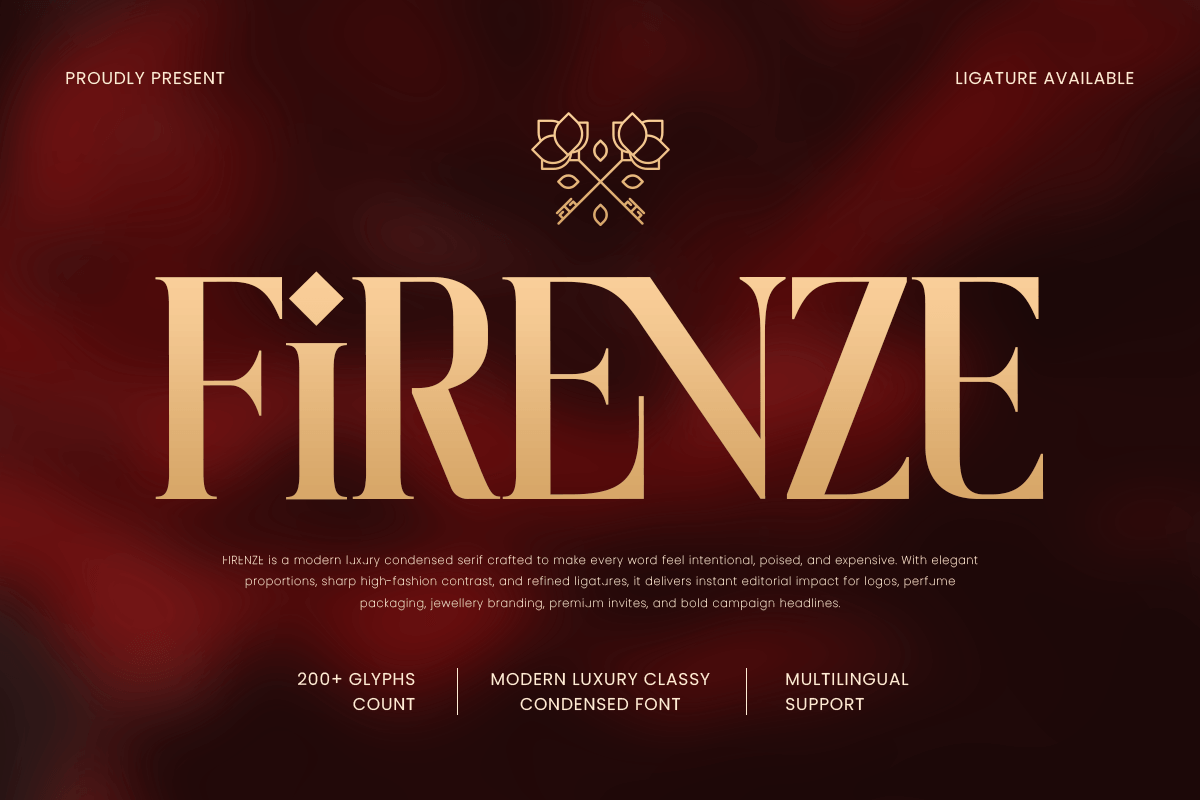
Firenze
-Modern Luxury Classy Condensed FontFirenze - Modern Luxury Classy Condensed Font
FIRENZE is a modern luxury classy condensed font crafted to deliver refined elegance with a sleek, space-saving silhouette. With tall proportions, polished details, and a confident premium rhythm, this typeface creates a sophisticated visual tone that feels stylish, exclusive, and instantly brand-ready.
Designed for high-impact typography, FIRENZE works beautifully across logos, wordmarks, brand identity systems, editorial headlines, magazine covers, website headers, packaging, labels, signage, presentations, and upscale marketing visuals. Its condensed structure helps maximize space while maintaining clarity, making every layout feel clean, bold, and professionally composed across both print and digital media.
Whether you’re building a fashion identity, launching a beauty brand, designing premium packaging, or creating elegant editorial compositions, FIRENZE provides a classy condensed foundation that makes your typography feel modern, luxurious, and unforgettable.
Inspiration Behind FIRENZE
FIRENZE is inspired by contemporary luxury branding and modern editorial typography—where condensed proportions create strong hierarchy and refined presence. The design focuses on elegant vertical rhythm, premium simplicity, and polished structure to support upscale identities with a sleek and timeless character.
FIRENZE Font Features:
Modern luxury condensed letterforms with classy premium character
Perfect for logos, wordmarks, and elegant headline typography
Space-saving structure for clean layouts and strong hierarchy
High readability for editorials, packaging, and brand statements
Luxury logos, wordmarks, and premium brand identity systems
Fashion editorials, magazine covers, lookbooks, and headlines
Beauty, skincare, fragrance, jewelry, and boutique branding
Premium packaging, labels, signage, and modern marketing layouts
Social media campaigns, websites, presentations, and upscale promos
Elevate your headlines with FIRENZE—a modern luxury classy condensed font built for sleek premium branding. ✨